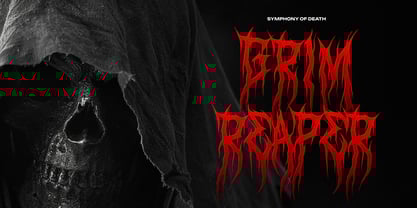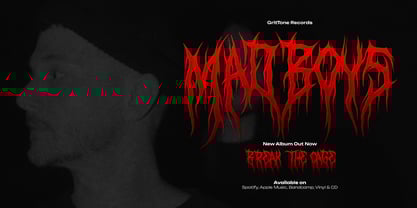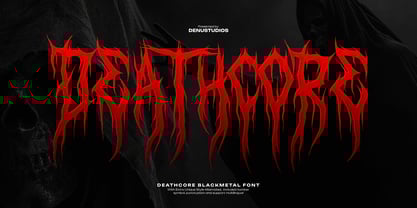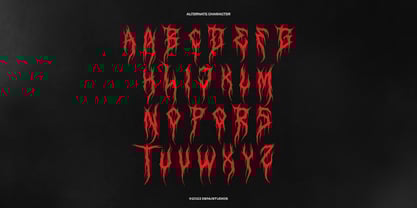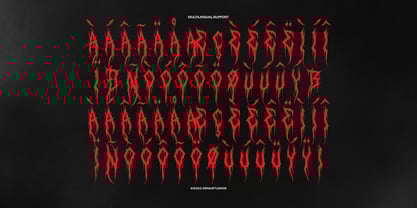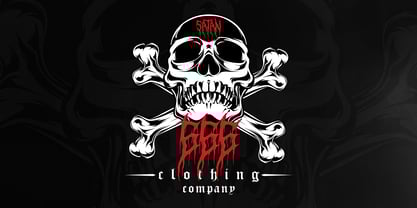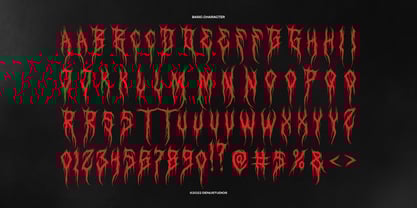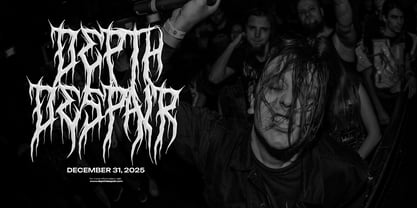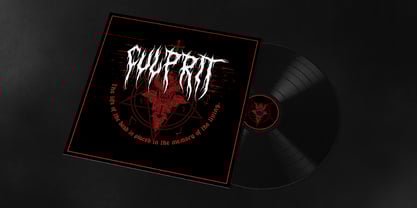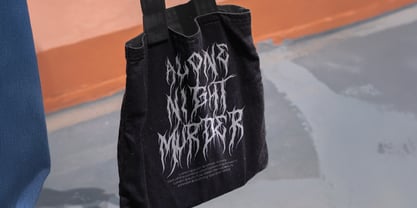
Deathcore
The Deathcore Font Family was designed by Dede Nugraha and published by Denustudio. Deathcore contains 1 styles. More about this family
Deathcore | Black Metal Font, from Denustudios, suitable for any projects such as: logos, branding projects, homeware designs, product packaging, mugs, quotes, posters, shopping bags, t-shirts, book covers, name card, invitation cards, greeting cards, label, photography, watermark, special events, and all your other lovely projects that need Black Metal Font a taste.
• Alternate and Ligature